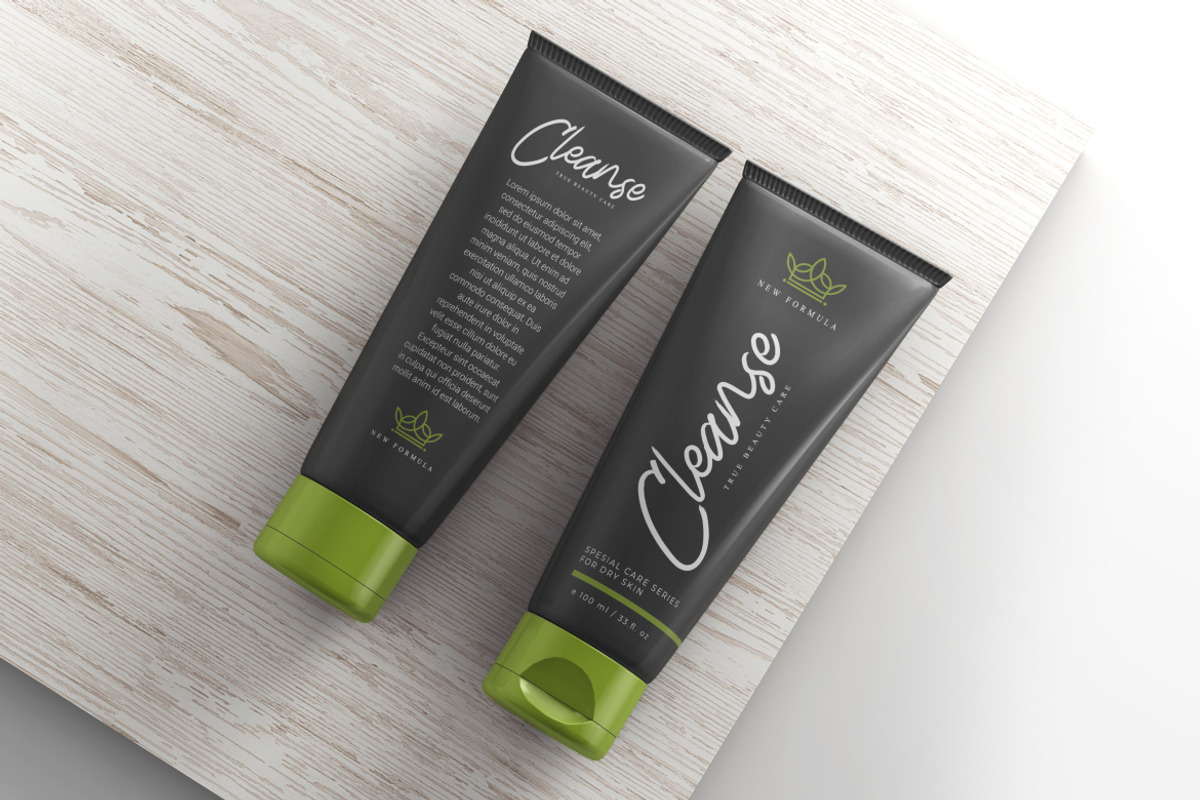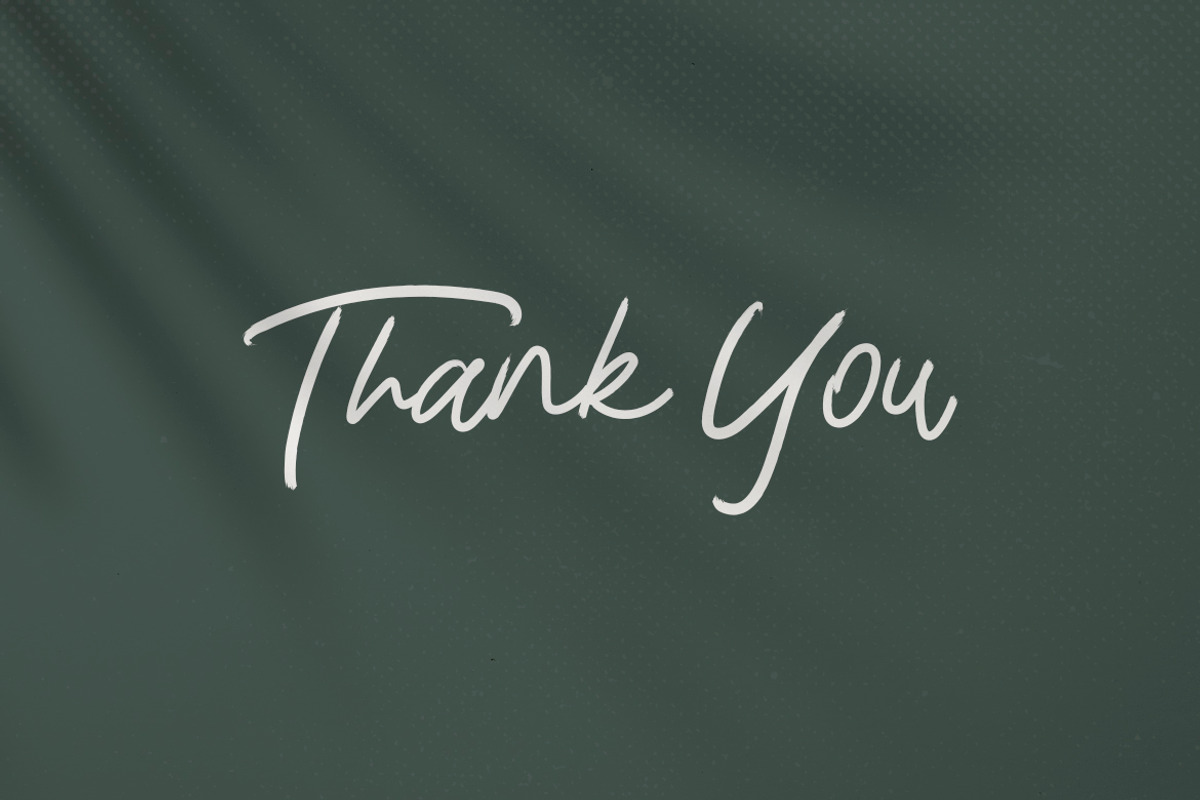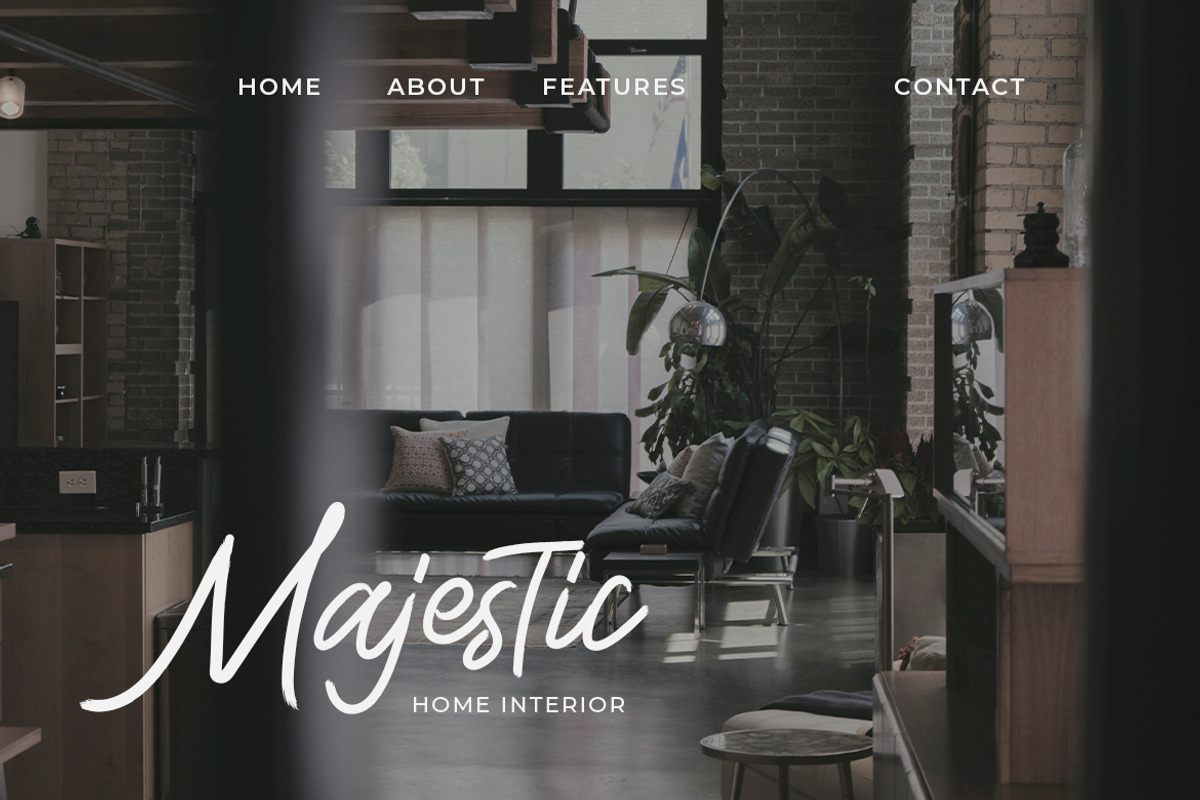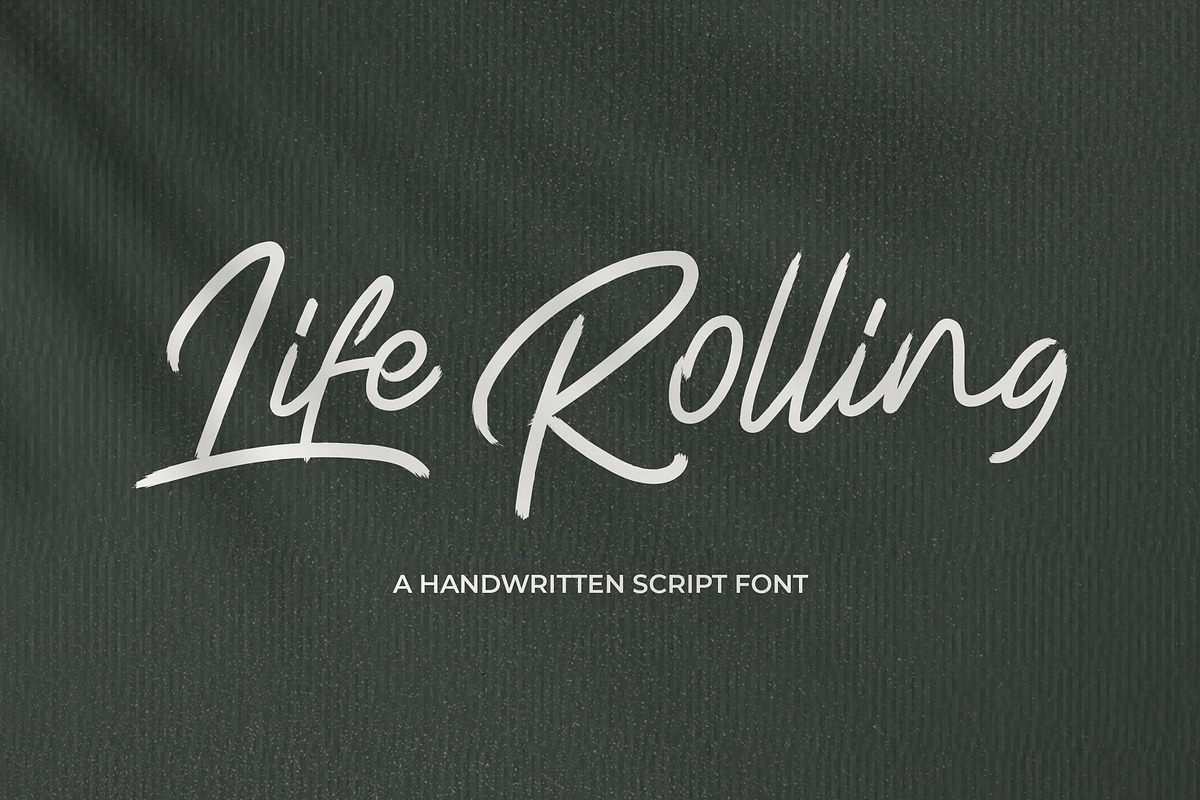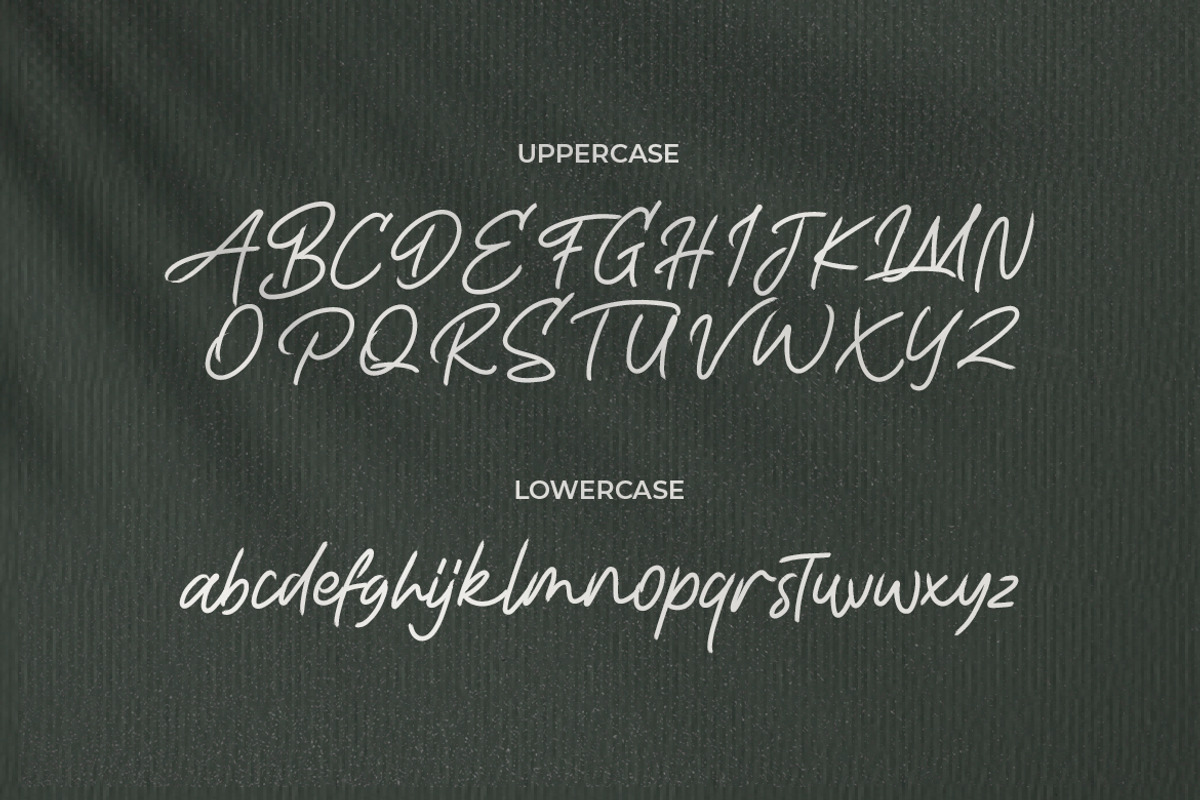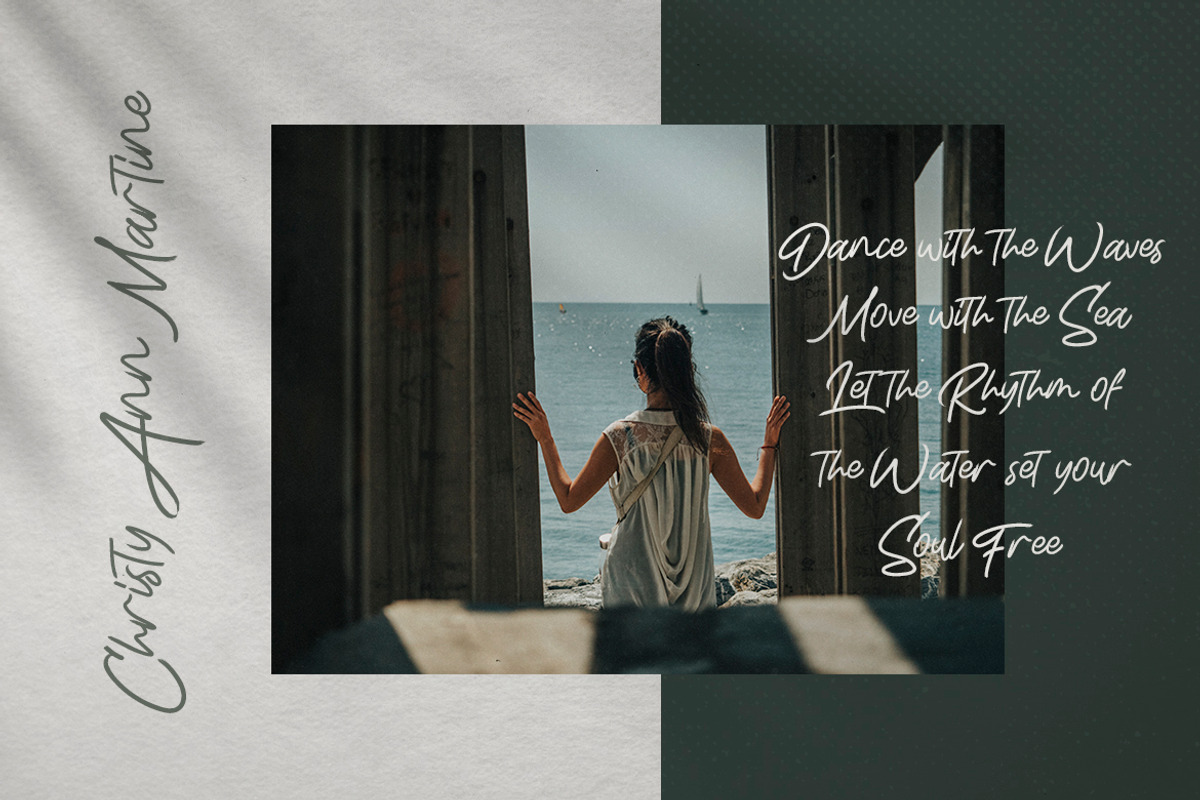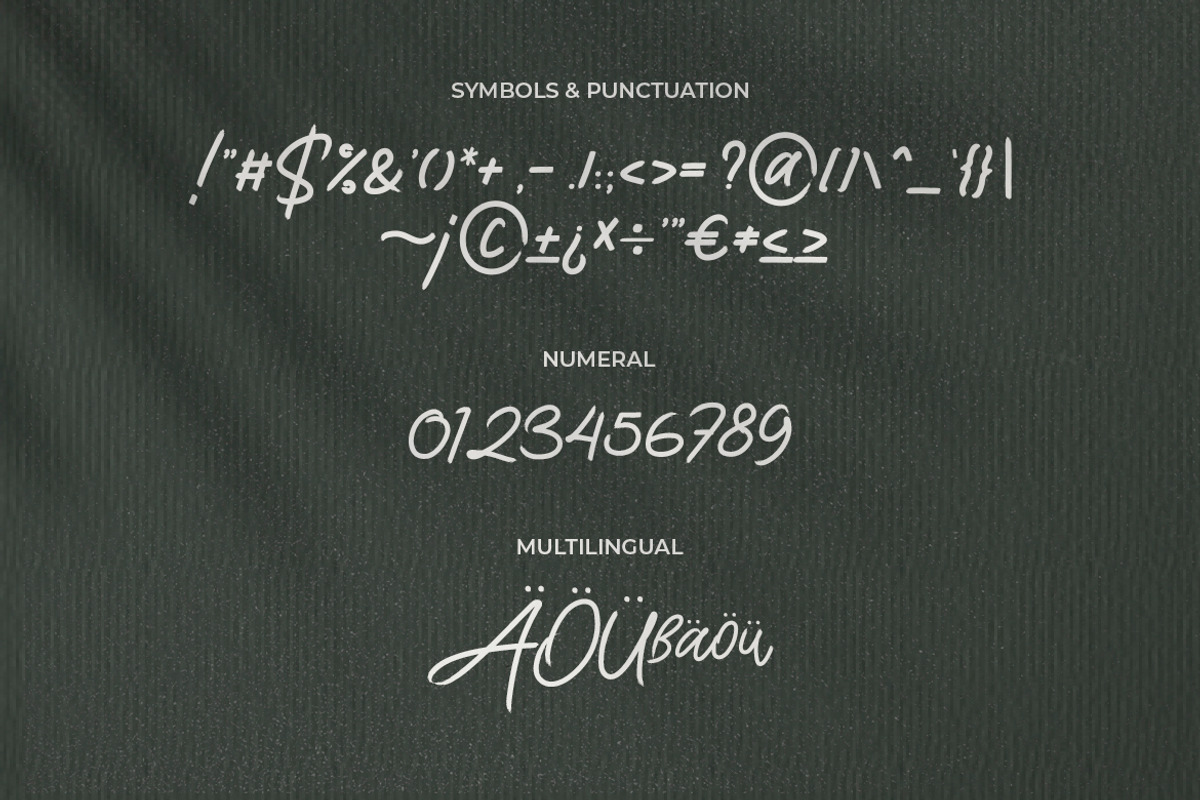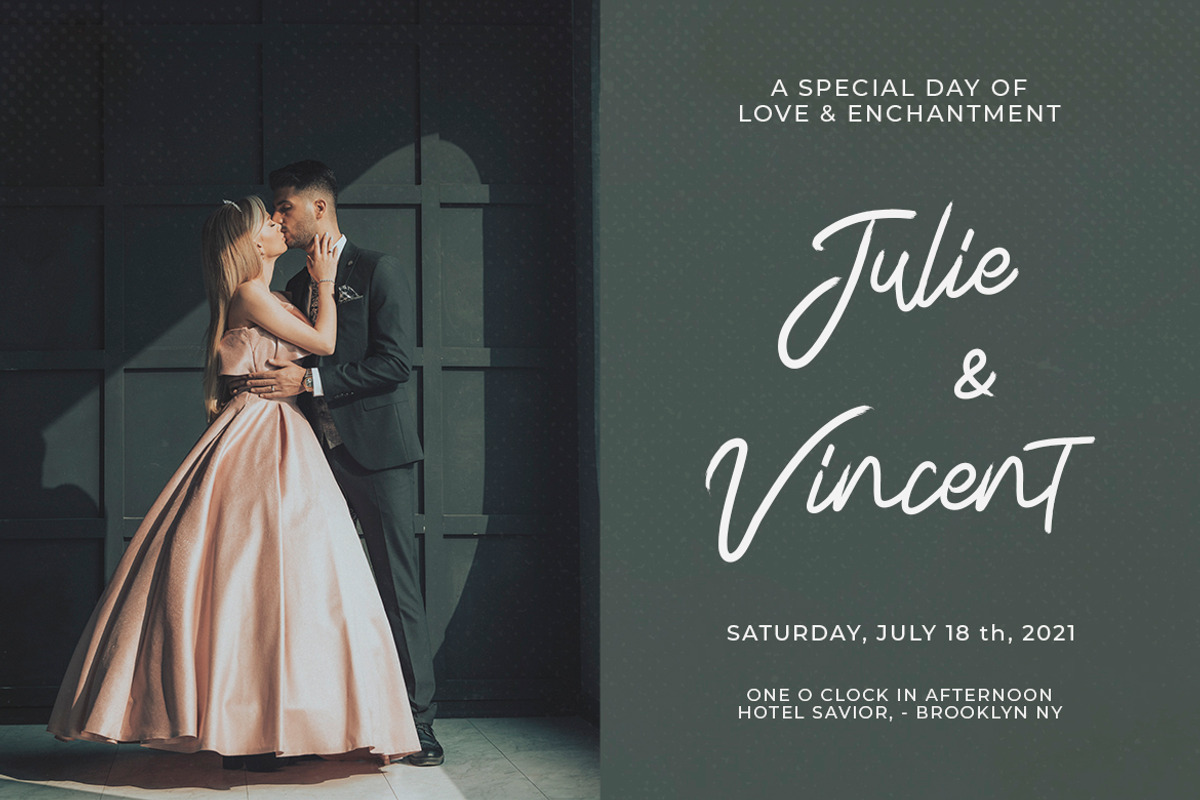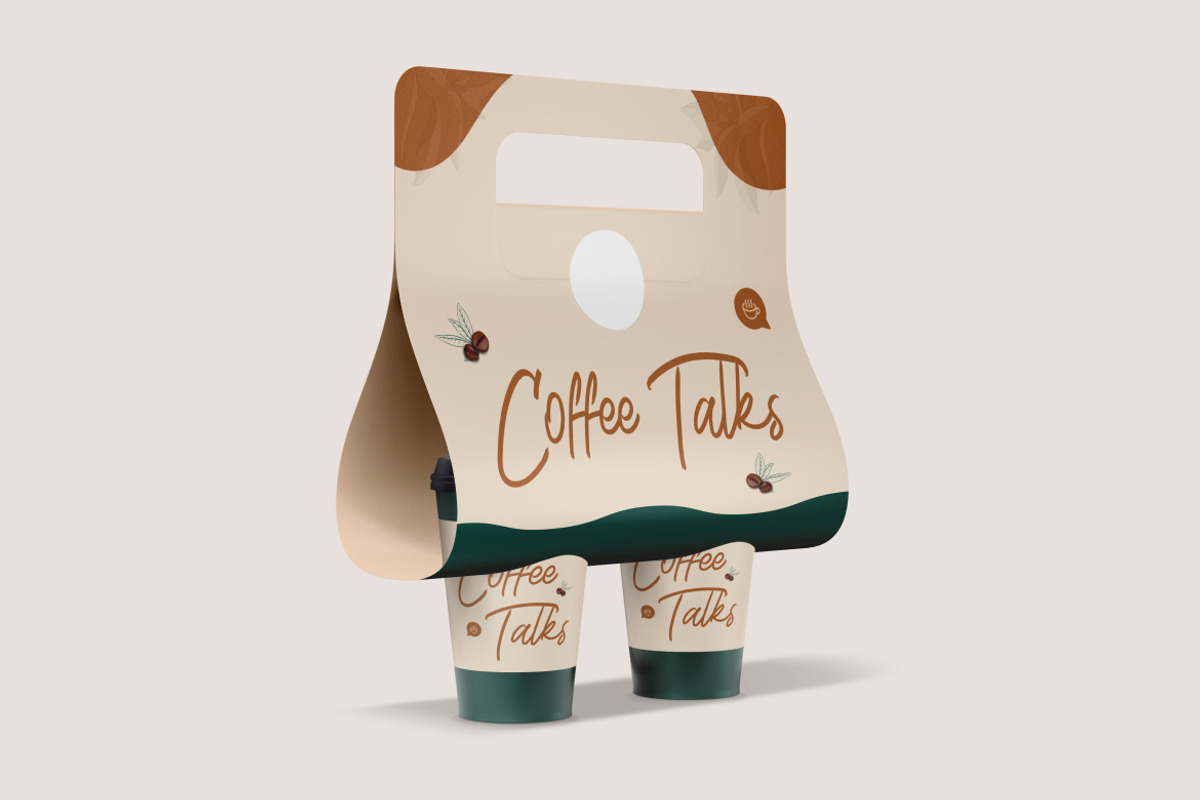
Life Rolling - Handwritten Script
Life Rolling is a elegant Handwriting typeface, perfectly suitable for creating quotes, Wedding Invitations, lifestyle designs such as logos, title, magazine, and more.